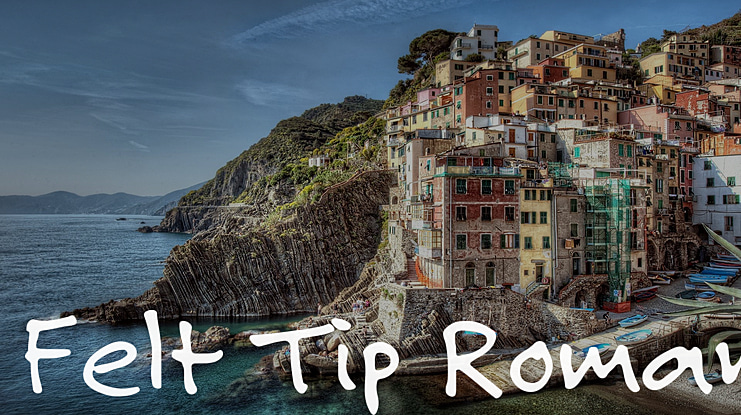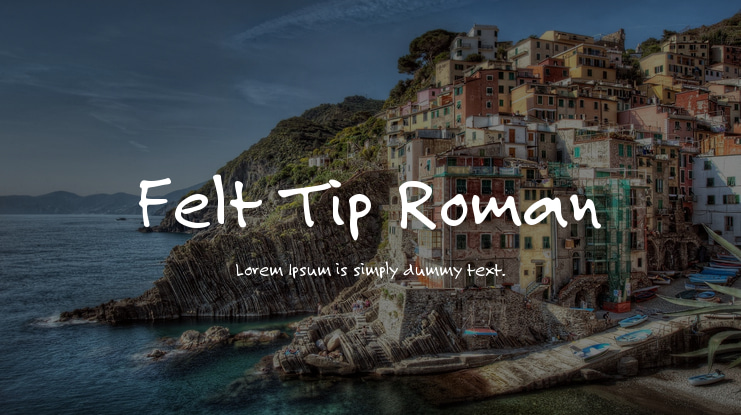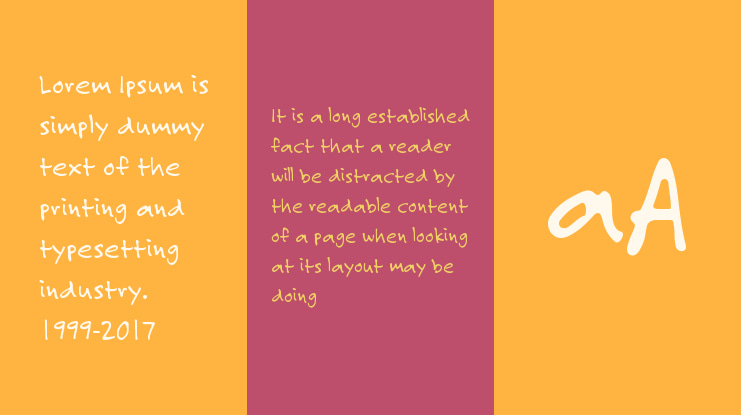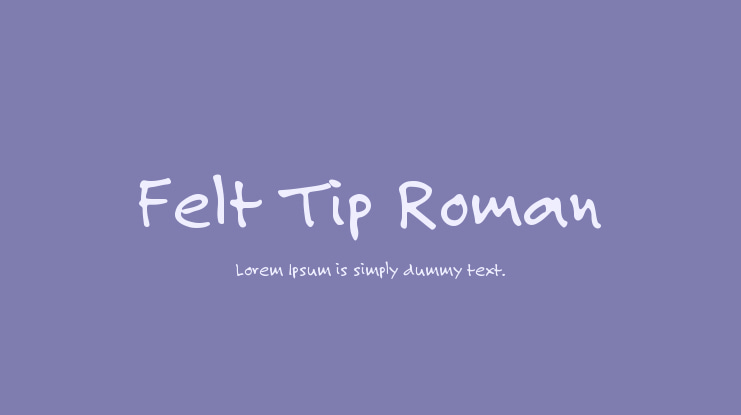
Felt Tip Roman Font Family
Felt Tip Roman began as an experiment in 1989--a straight adaptation of the designer's handwriting. The Bold and Heavy weights were added in 2003 to broaden the usefulness of this very popular typeface.